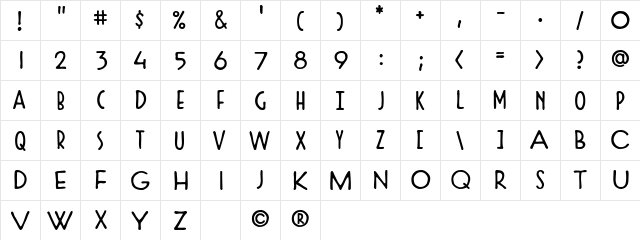
CCDutchCourage3 Draught
CCDutchCourage3 offers clean, dependable letterforms without strong stylistic allegiance, making it a practical choice for designers who need flexibility.